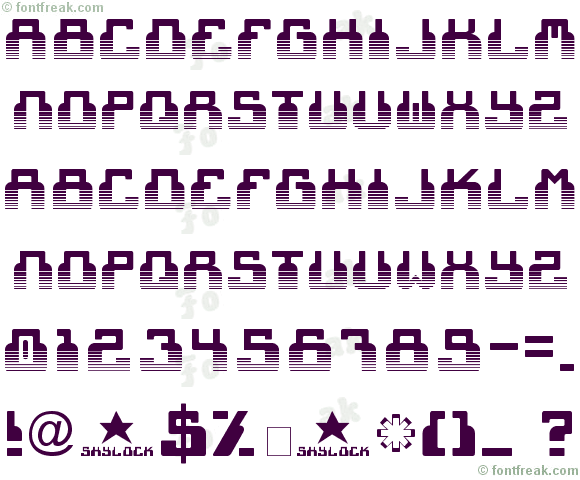
cheek2cheek (faded!) by shk.dezign
About Cheek 2 Cheek Faded
Cheek 2 Cheek Faded by Shylock is a distinctive display font that captivates with its unique blend of whimsy and elegance. This decorative typeface features a playful yet sophisticated aesthetic, characterized by its bold, rounded forms and soft edges that create a gentle, inviting appearance. The font exhibits a moderate stroke weight, allowing for clear legibility while still maintaining a stylish flair. The subtle variations in contrast and spacing contribute to a relaxed vibe, making it suitable for various creative applications.
This font shines in use cases such as wedding invitations, where its charming design can convey warmth and joy. Additionally, it is an excellent choice for movie posters, adding a touch of personality that draws attention and piques interest. Restaurant menus can also benefit from the Cheek 2 Cheek Faded font, giving a modern yet casual feel that complements diverse culinary themes. Graphic designers will find it particularly appealing for branding projects that require a unique touch, while content creators can use it to enhance social media graphics or promotional materials.
The target audience for this font includes graphic designers, small business owners, and content creators looking to infuse personality into their projects. Whether you are crafting a visually captivating invitation or designing eye-catching promotional content, Cheek 2 Cheek Faded offers versatility and charm.
What sets Cheek 2 Cheek Faded apart is its ability to balance playfulness with sophistication, making it an ideal choice for a wide range of design projects. The font's availability as freeware allows creatives to explore its potential without financial constraints. Discover the charm of this unique typeface with the Cheek 2 Cheek Faded font free download, and elevate your designs to new heights.